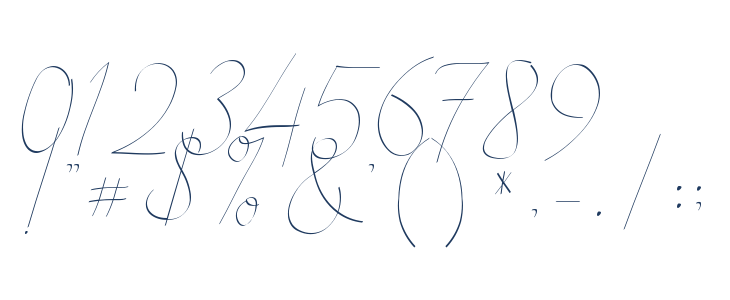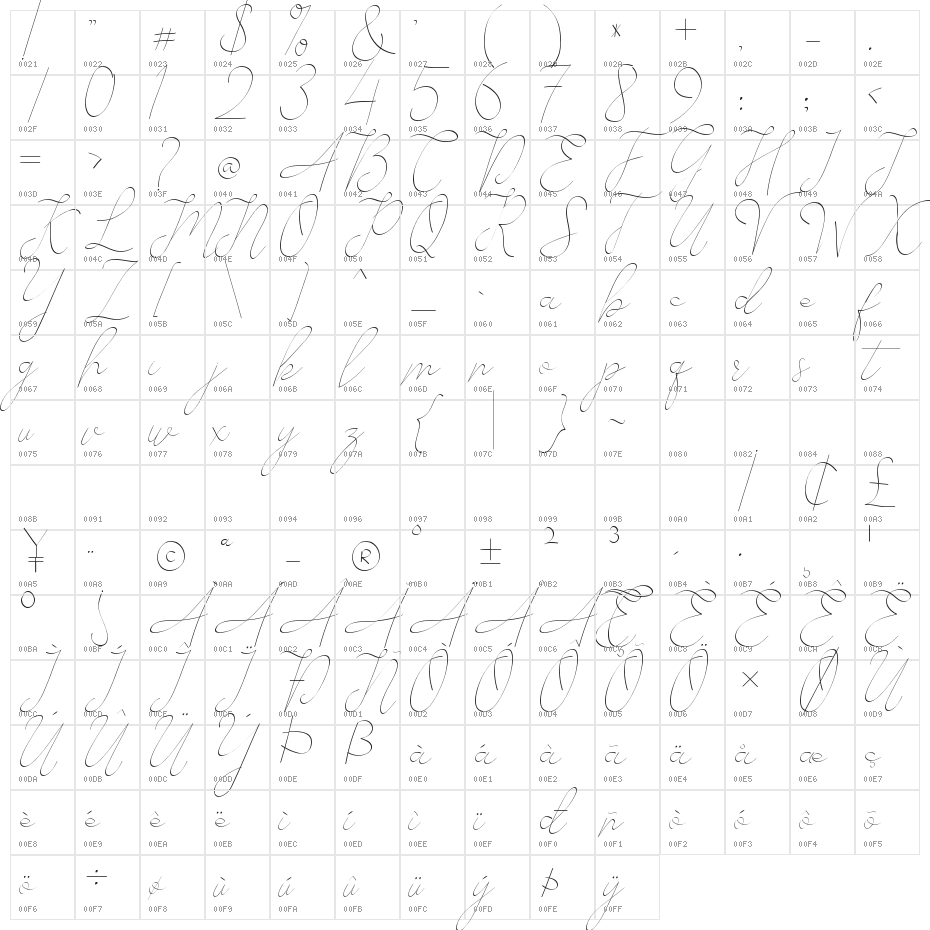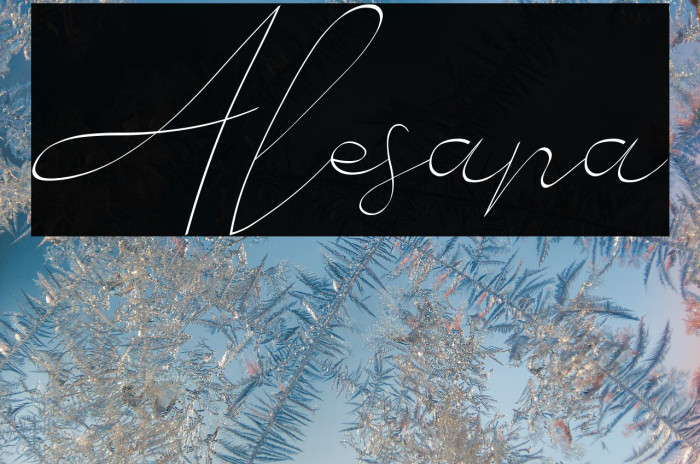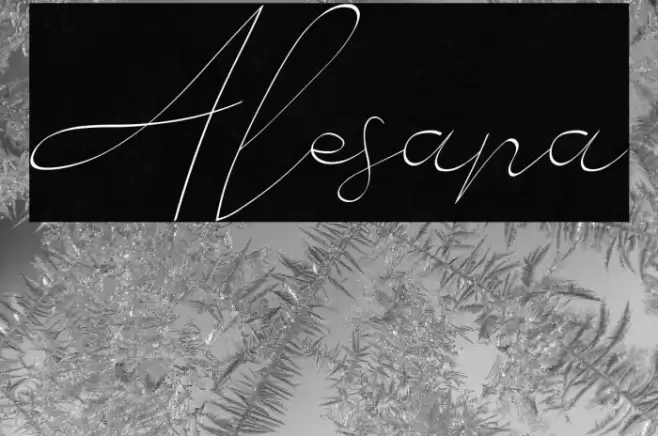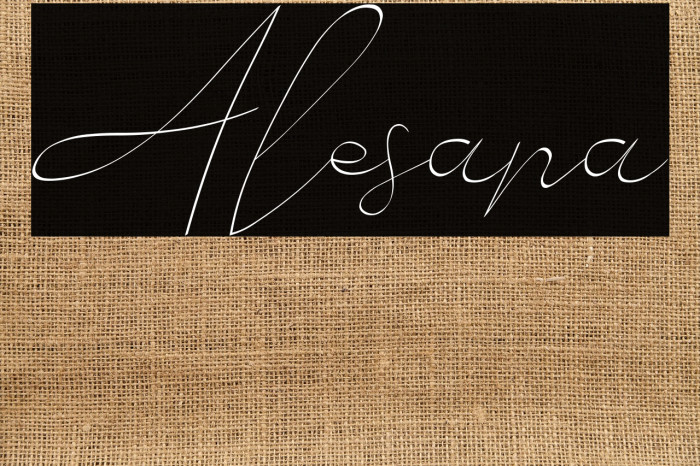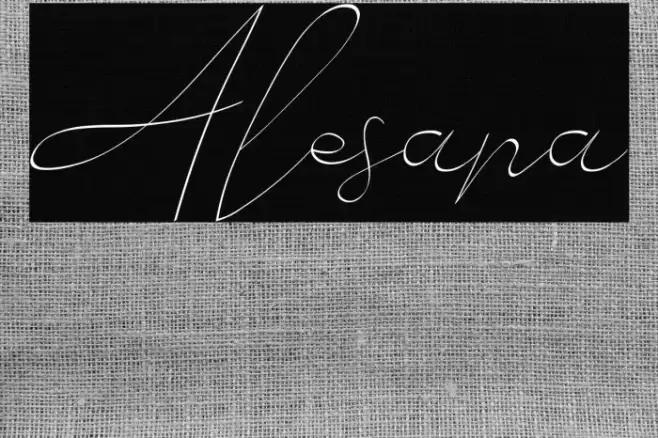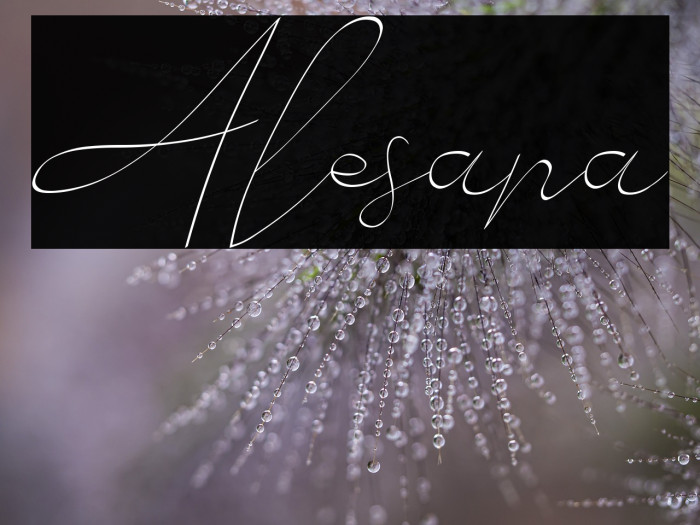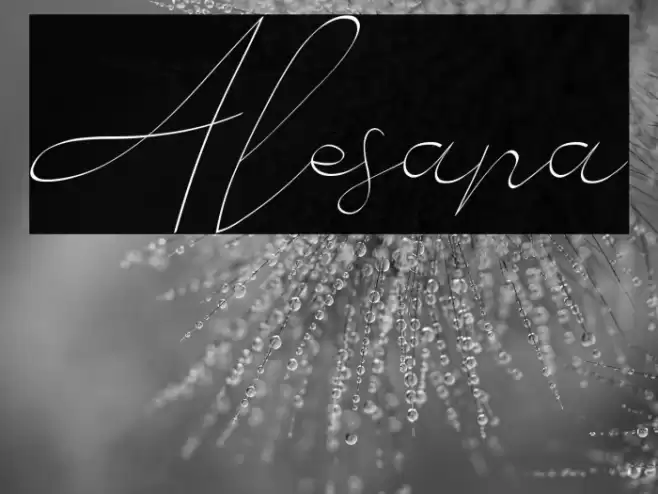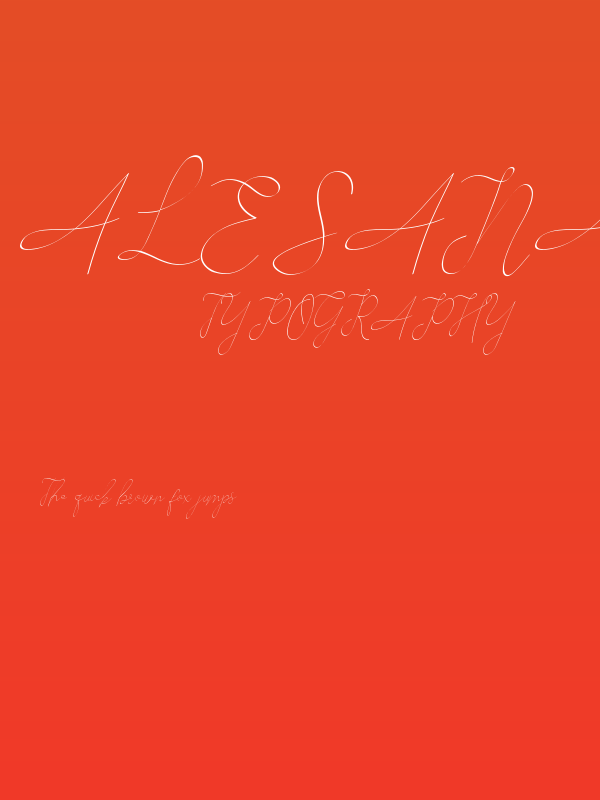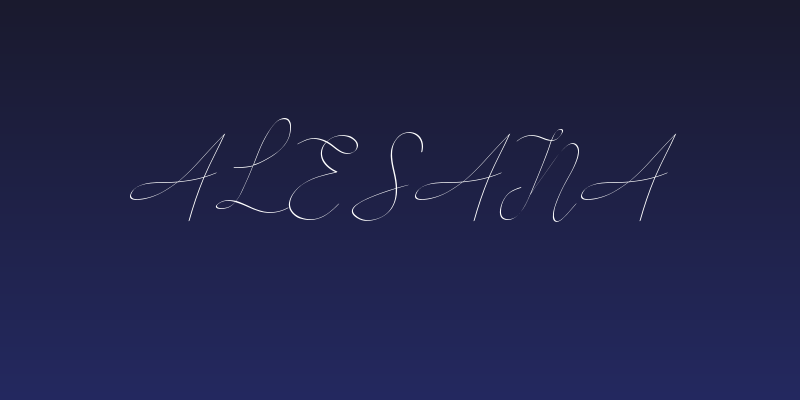
Alesana Font
Alesana Description
This elegant script font features flowing, interconnected letters with a refined and sophisticated appearance. The characters are delicately crafted with thin lines and gentle curves, creating a sense of fluidity and grace. The uppercase letters are slightly more ornate, with extended loops and swashes that add a touch of flair. The lowercase letters maintain a consistent style, ensuring readability while preserving the font's artistic nature. Numbers and special characters are designed to complement the overall aesthetic, maintaining the same thin, graceful strokes. This font exudes a sense of elegance and is perfect for projects that require a touch of sophistication and style.